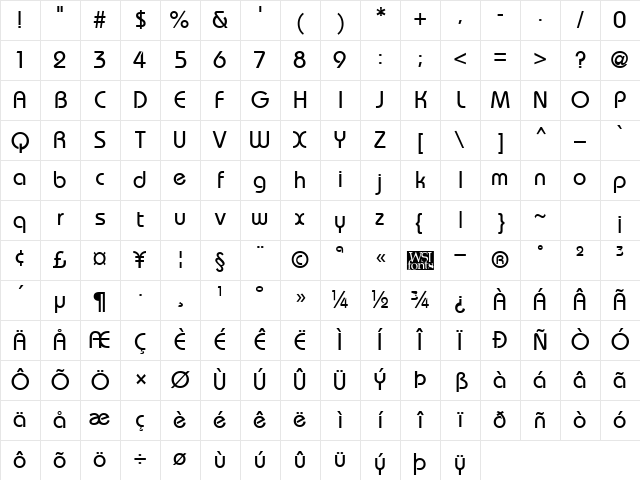
BordeauxMedium Regular
BordeauxMedium Regular Family
BordeauxMedium Regular
BordeauxMedium Regular Font Preview
BordeauxMedium Regular Uppercase Preview
BordeauxMedium Regular Lowercase Preview
BordeauxMedium Regular Numeric Preview
BordeauxMedium Regular Character Map
Complete BordeauxMedium Regular glyph index. Displaying only characters natively supported by BordeauxMedium Regular font.
Design Context for BordeauxMedium
BordeauxMedium is a composed and adaptable typeface that performs quietly and consistently across a wide range of design contexts.